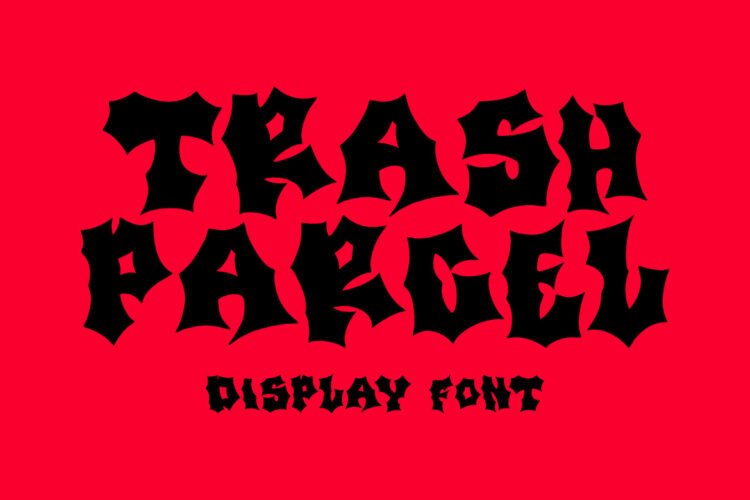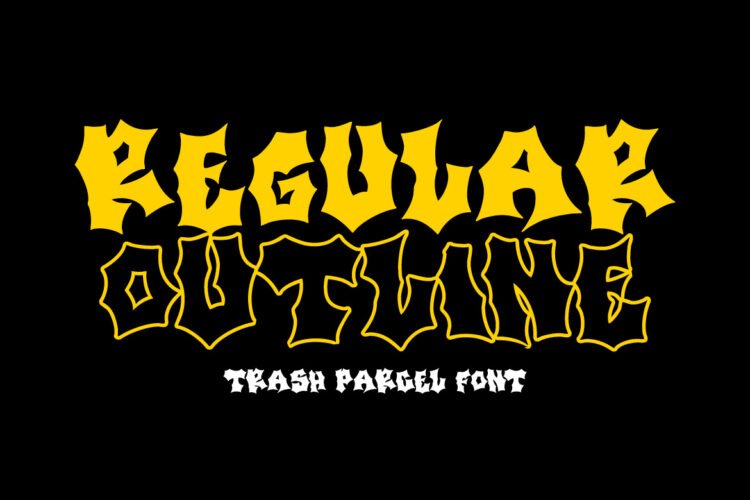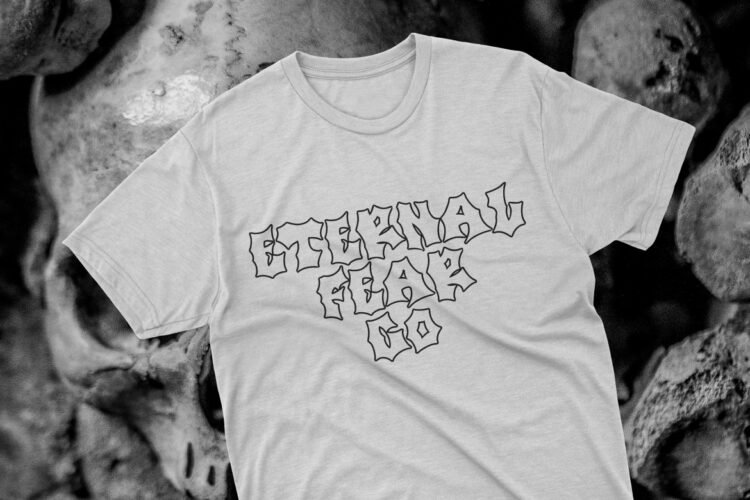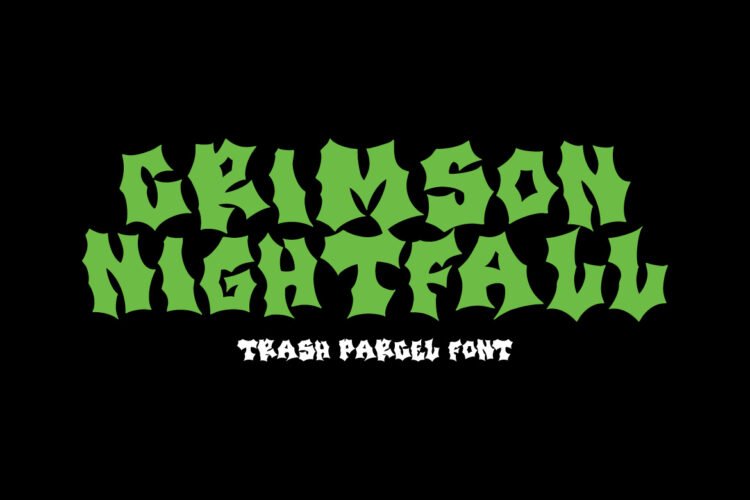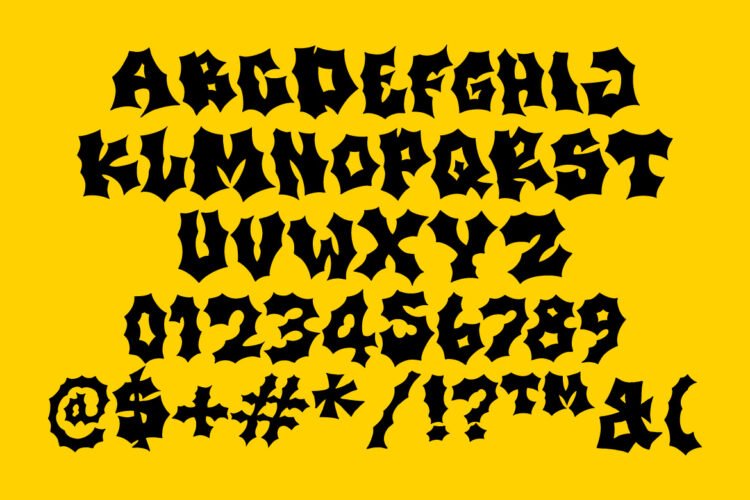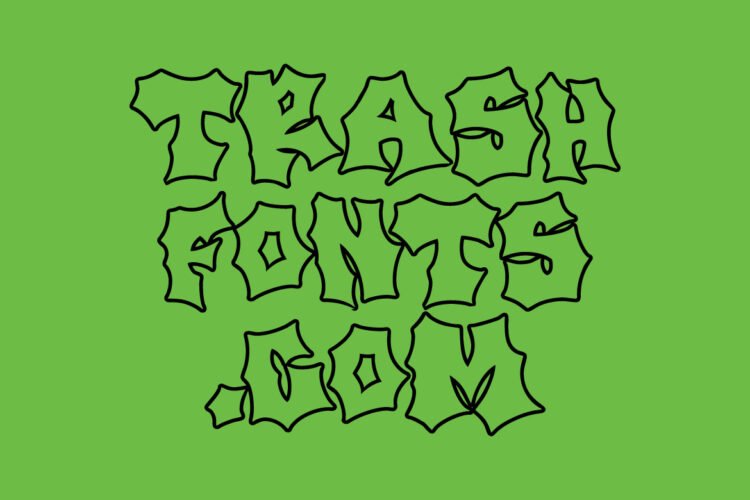
Explore the might of ‘Trash Parcel’—a metal font that wields simplicity with unyielding ferocity. Its bold, straightforward design delivers a powerful visual impact, capturing the raw intensity of metal with stripped-down boldness. Available in two striking styles, Regular and Outline, ‘Trash Parcel’ offers a commanding presence with a touch of brutal simplicity. Unleash uncompromising power with the fierce and memorable styles of ‘Trash Parcel.